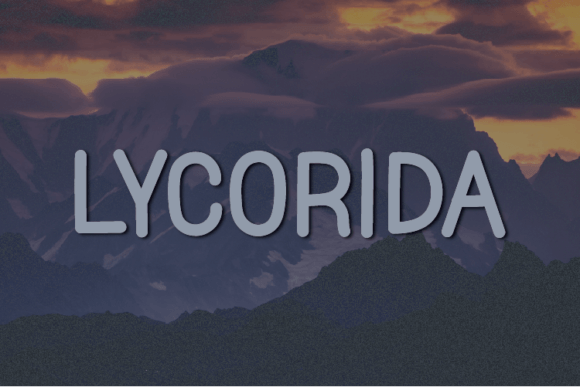
Lycorida Font: A Unique and Natural Sans Serif Font for Creative Designs
In the world of typography, fonts play a crucial role in conveying messages, expressing emotions, and creating visual identities. With the vast array of fonts available, designers often seek unique and distinctive fonts to make their designs stand out. One such font that has gained attention in recent times is Lycorida, a natural sans serif font that boasts an interesting and unique characteristic. In this article, we will explore the Lycorida font, its features, and its applications in various design projects.
What is Lycorida Font?
Lycorida is a natural sans serif font that has been crafted without altering a single node in each character’s indentation. This distinctive approach makes Lycorida a one-of-a-kind font that offers a fresh perspective on sans serif typography. The font’s creator aimed to preserve the natural curves and shapes of the characters, resulting in a font that exudes a sense of simplicity, elegance, and sophistication.
Key Features of Lycorida Font
The Lycorida font has several key features that make it an attractive choice for designers:
- Natural Sans Serif: Lycorida’s sans serif design gives it a clean and modern look, making it perfect for a wide range of applications.
- Unique Indentation: The font’s unique indentation characteristic sets it apart from other sans serif fonts, adding a touch of personality to any design.
- No Node Alterations: By not altering a single node in each character’s indentation, the font’s creator has preserved the natural curves and shapes of the characters, resulting in a distinctive and authentic look.
Applications of Lycorida Font
Lycorida’s versatility and unique characteristics make it suitable for various design projects, including:
- Quotes and Notes: Lycorida’s clean and elegant design makes it perfect for quotes, notes, and other text-based designs.
- T-Shirts and Apparel: The font’s unique character makes it an excellent choice for t-shirt designs, adding a touch of personality to any apparel.
- Product Design: Lycorida’s natural sans serif design and distinctive indentation make it an excellent choice for product design, packaging, and branding.
Benefits of Using Lycorida Font
Using Lycorida font in your designs offers several benefits:
- Unique Visual Identity: Lycorida’s distinctive design helps create a unique visual identity for your brand or design project.
- Improved Readability: The font’s clean and elegant design ensures excellent readability, making it perfect for body text and headings.
- Flexibility: Lycorida’s versatility makes it suitable for various design applications, from digital designs to print materials.
Tips for Using Lycorida Font Effectively
To get the most out of Lycorida font, consider the following tips:
- Pair with Other Fonts: Lycorida pairs well with other fonts, so experiment with different combinations to create visually appealing designs.
- Adjust Font Size and Weight: Adjust the font size and weight to create visual hierarchy and add emphasis to specific text elements.
- Use in Combination with Images: Lycorida’s clean design makes it an excellent choice for use in combination with images, creating a harmonious balance between text and visuals.
Lycorida font is a unique and natural sans serif font that offers a fresh perspective on typography. Its distinctive indentation characteristic, combined with its clean and elegant design, makes it perfect for a wide range of design applications. By incorporating Lycorida into your designs, you can create visually appealing and effective designs that stand out from the crowd.
- What is Lycorida font? Lycorida is a natural sans serif font made without changing a single node in each character’s indentation.
- What makes Lycorida unique? Lycorida’s unique indentation characteristic and natural sans serif design make it a distinctive font.
- What are the applications of Lycorida font? Lycorida is suitable for quotes, notes, t-shirts, product design, and any other design project that requires a clean and elegant sans serif font.